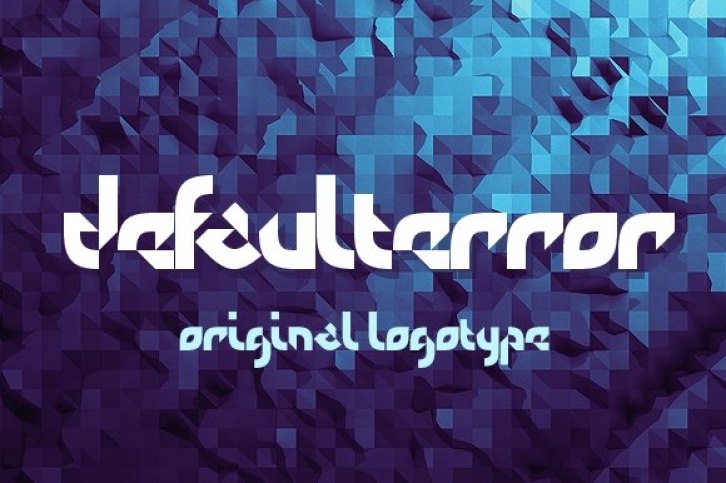
Defaulterror an original logotype font that contains 26 characters and 10 unique numerals. The font is perfect for futuristic logo styles, interesting headers, typographic posters or even as a custom pattern. Available in TTF format only.